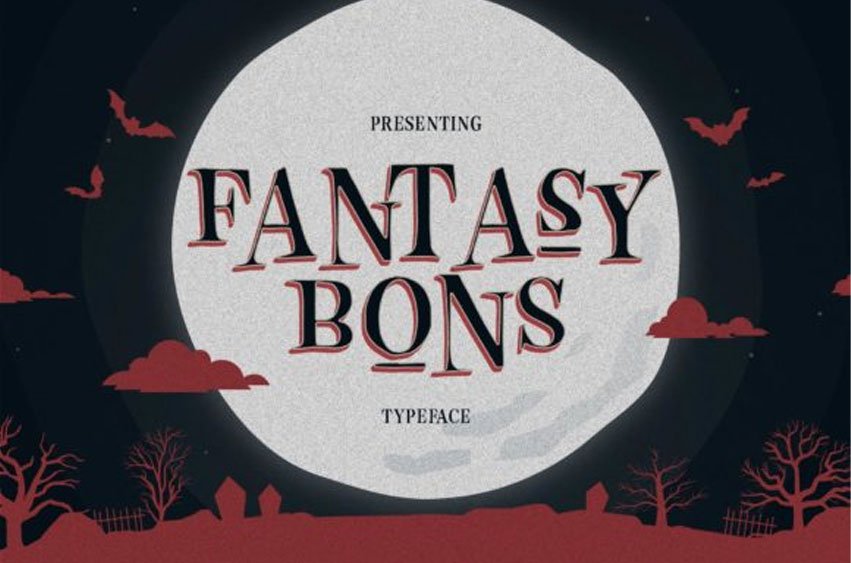
Fantasy Bons Font is a charming and spooky serif font. No matter the topic, this font will be an incredibly asset to your fonts’ library, as it has the potential to elevate any creation.